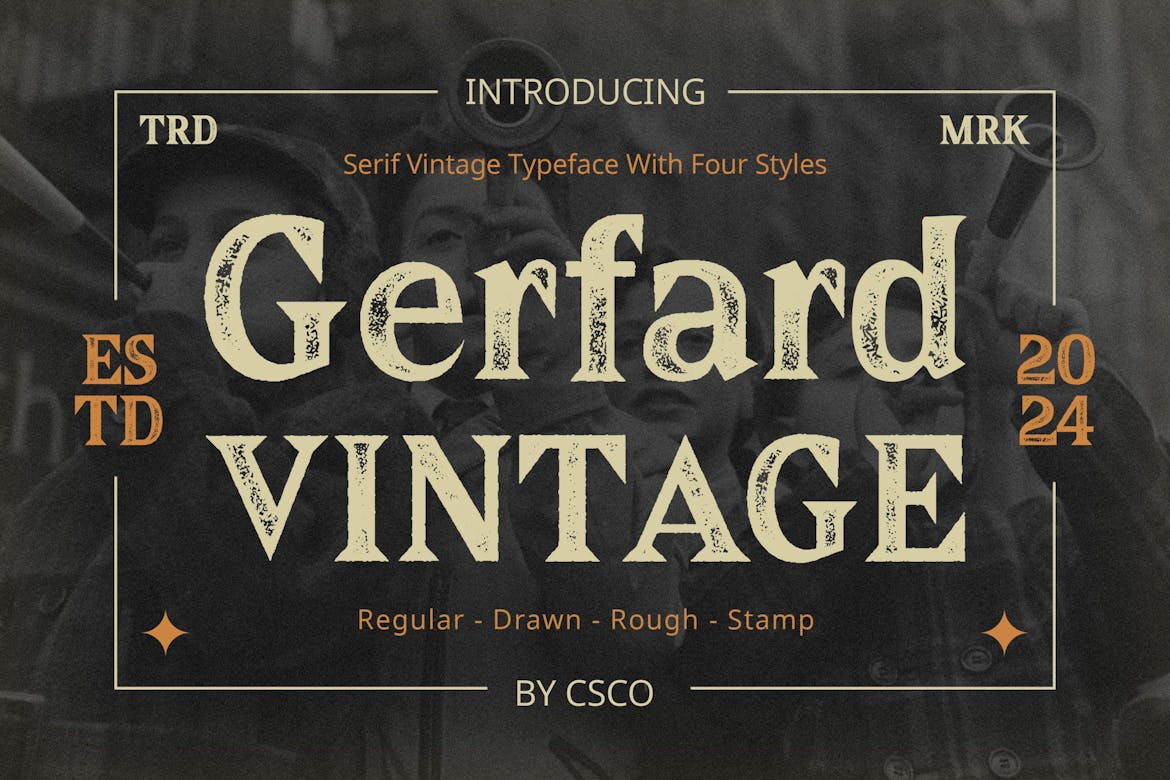
Gerfard Vintage Font
The Gerfard Vintage Font is perfect for retro branding, nostalgic packaging design, vintage poster artwork, classic business logos, old-school signage, heritage product labels, throwback advertising campaigns, and authentic period design projects.
What makes Gerfard Vintage Font so exciting is its authentic capture of classic typographic traditions that instantly transports viewers to the golden age of design with genuine period accuracy and nostalgic charm. This remarkable typeface features carefully researched historical letterforms with period-appropriate proportions and character details that reflect the craftsmanship and aesthetic sensibilities of vintage typography masters. The font's distinctive character combines the elegance of classic design eras with the warmth and personality that made vintage lettering so memorable and enduring. Its authentic vintage appeal makes it perfect for brands that want to evoke heritage, tradition, and timeless quality while connecting with audiences who appreciate the artistry and attention to detail that defined earlier design periods.
The Gerfard Vintage Font family includes comprehensive variations that capture different aspects of vintage typography from various classic design eras and stylistic movements. The collection typically features multiple weights from Light to Bold, each maintaining the signature vintage characteristics while offering creative flexibility. Many versions include italic styles with period-appropriate slant angles, alternative characters featuring historical design elements, decorative ligatures inspired by classic typography, and extended character sets supporting international languages for global vintage-inspired branding and heritage design projects.
The font's remarkable authenticity works beautifully across both digital and print applications, from modern websites with retro themes to traditional packaging and editorial design. Its carefully researched historical accuracy maintains visual impact at all sizes while preserving the distinctive vintage character that makes period design so appealing to contemporary audiences.
Professional designers and creative agencies worldwide trust this authentic vintage font for projects requiring genuine historical accuracy and nostalgic appeal. Whether developing brand identities for heritage businesses, creating marketing materials for vintage-inspired products, or designing promotional content for period entertainment properties, this font delivers the perfect combination of historical authenticity and modern functionality.